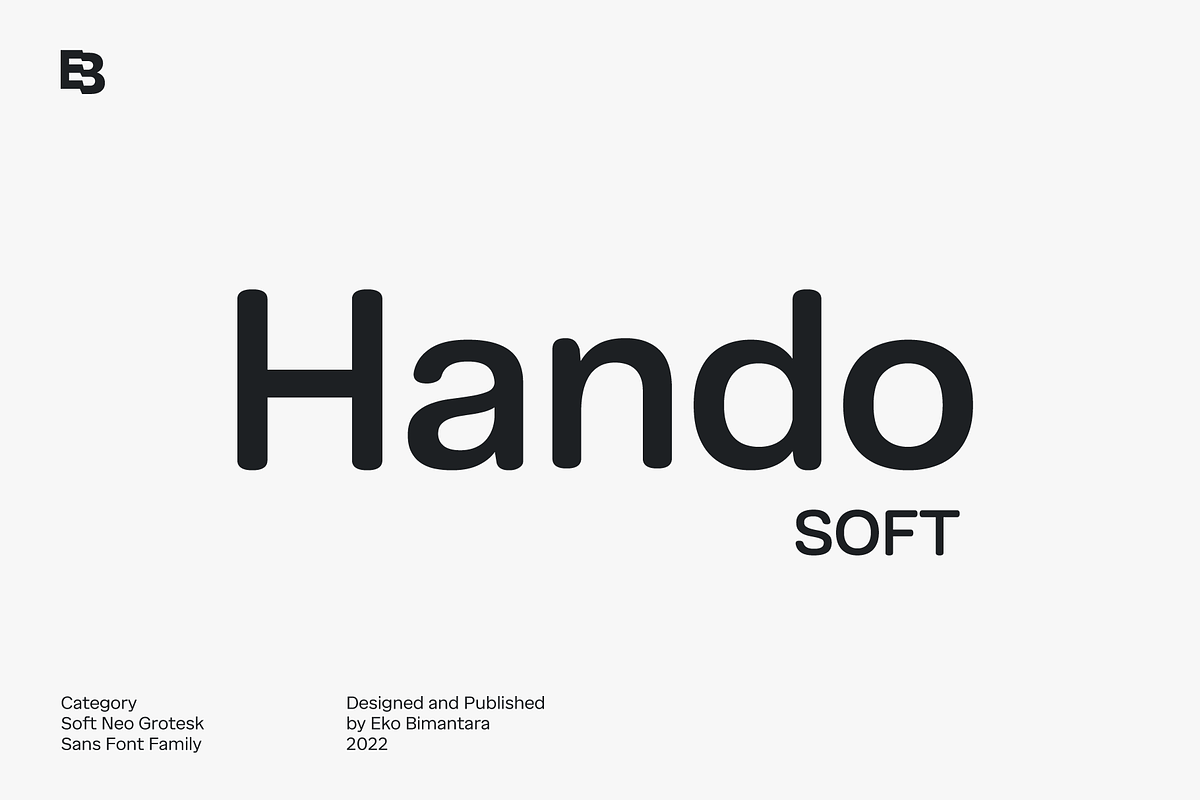
Hando Soft; Neo Grotesk Font Family Free Download
Hando Soft; Neo Grotesk Font Family Free Download is a clean, contemporary typeface inspired by classic grotesk fonts, softened for a friendlier, more approachable look. Ideal for branding, editorial layouts, web design, and corporate materials, it offers excellent readability and professional versatility. Please note that you must purchase this font for commercial use, but it is available as a free download for testing purposes. Whether you're designing for digital or print, Hando Soft; Neo Grotesk Font Family Free Download provides a modern typographic solution with smooth edges and a balanced, minimalist feel.